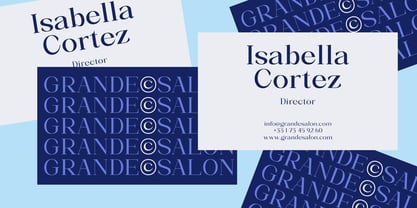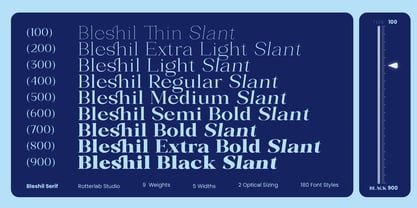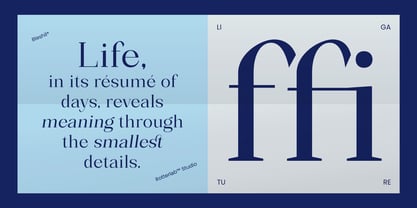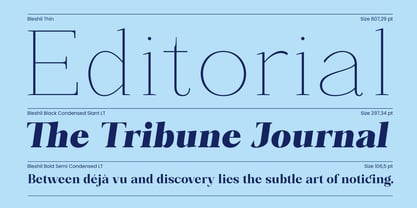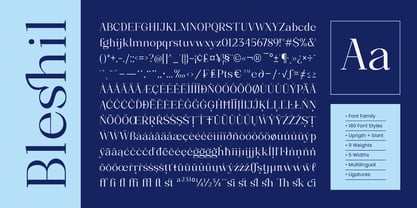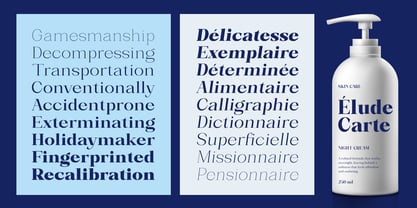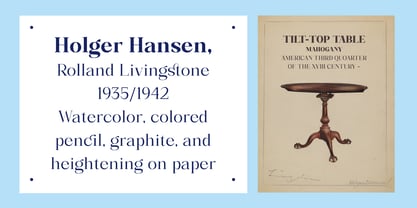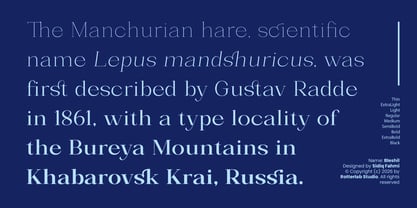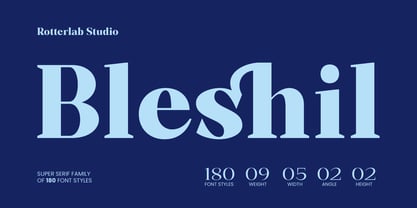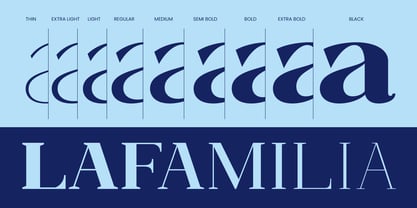
Bleshil
by Rotterlab Studio
The Bleshil Font Family was designed by Sidiq Fahmi and published by Rotterlab Studio. Bleshil contains 180 styles and family package options. More about this family
Bleshil is a modern super serif designed to deliver elegance, expression, and flexibility within a comprehensive type family. Featuring a total of 180 styles, Bleshil offers an extensive system of 9 weights, 5 widths, 2 angles, and 2 heights—giving designers full creative control across a wide range of visual applications, from editorial design to premium branding. Its letterforms showcase refined contrast with distinctive, contemporary serif details, making it ideal for striking headlines while maintaining excellent readability in longer texts. Balanced proportions and dynamic shapes allow Bleshil to stand out without sacrificing harmony and sophistication. Bleshil is perfect for: Branding and visual identity Editorial and magazine design Posters and creative campaigns Premium product packaging Web and modern digital interfaces With its high versatility and distinctive character, Bleshil is more than just a typeface—it's a complete typographic system built to elevate the quality and consistency of your design work.
Designers: Sidiq Fahmi
Foundry: Rotterlab Studio